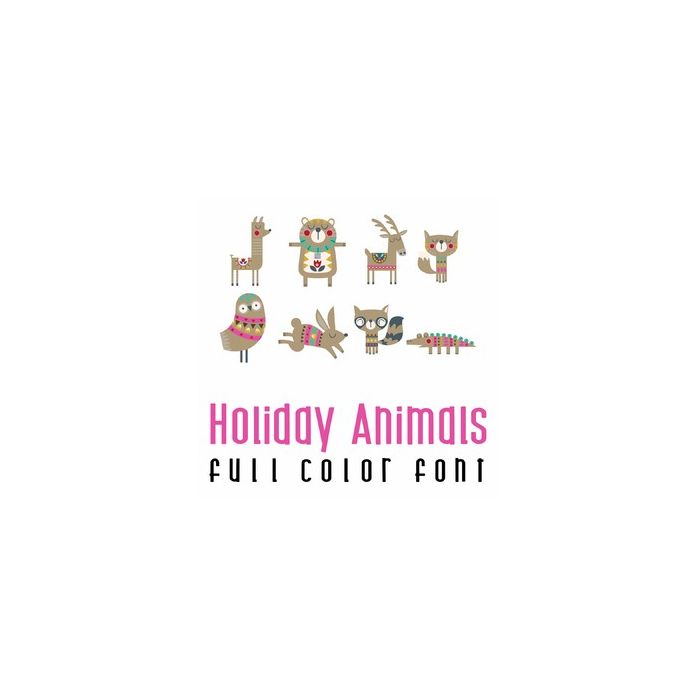
This adorable full color doodlebat font features 26 beautiful design filled forest animals perfect for the Holidays . Perfect for cards, crafts, gifts, decor, scrap book pages, planner stickers and more!